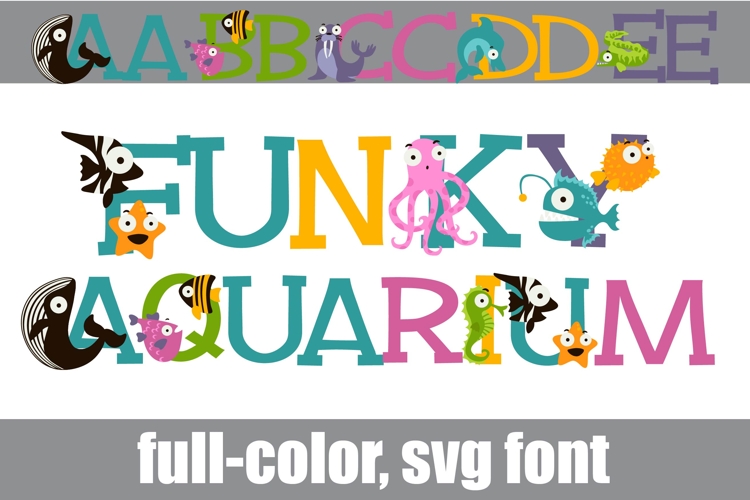
Funky Aquarium Color Font
This full-color, whimsical font is a whimsical serif with sea-life on the uppercase and a lowercase without. There is a full alt-case with additional colors you can access through your system's character map.